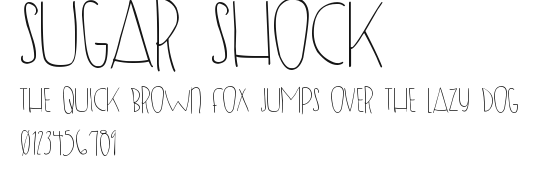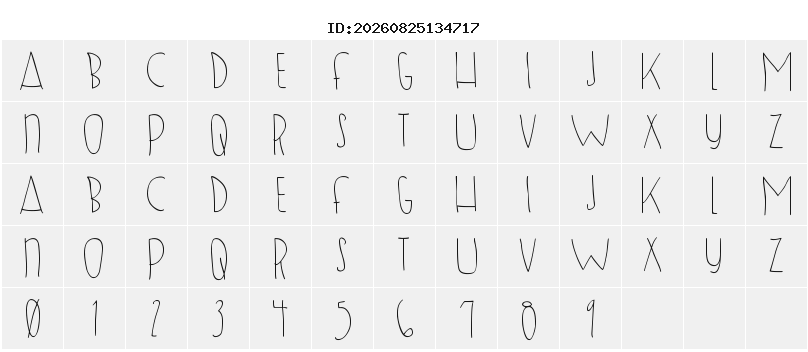
SUGAR SHOCK Preview
• Font Name: SUGAR SHOCK
• Font ID: SUGAR SHOCK:Version 1.00
• Full Font Name: SUGAR SHOCK
• Version: Version 1.00 November 15, 2011, initial release
• PostScript Name: SUGARSHOCK
• Character Count: 366
About SUGAR SHOCK.ttf
SUGAR SHOCK.ttf is a modern, elegant sans-serif font designed for ultimate readability and visual harmony. Perfect for branding, headlines, web design, and print materials.